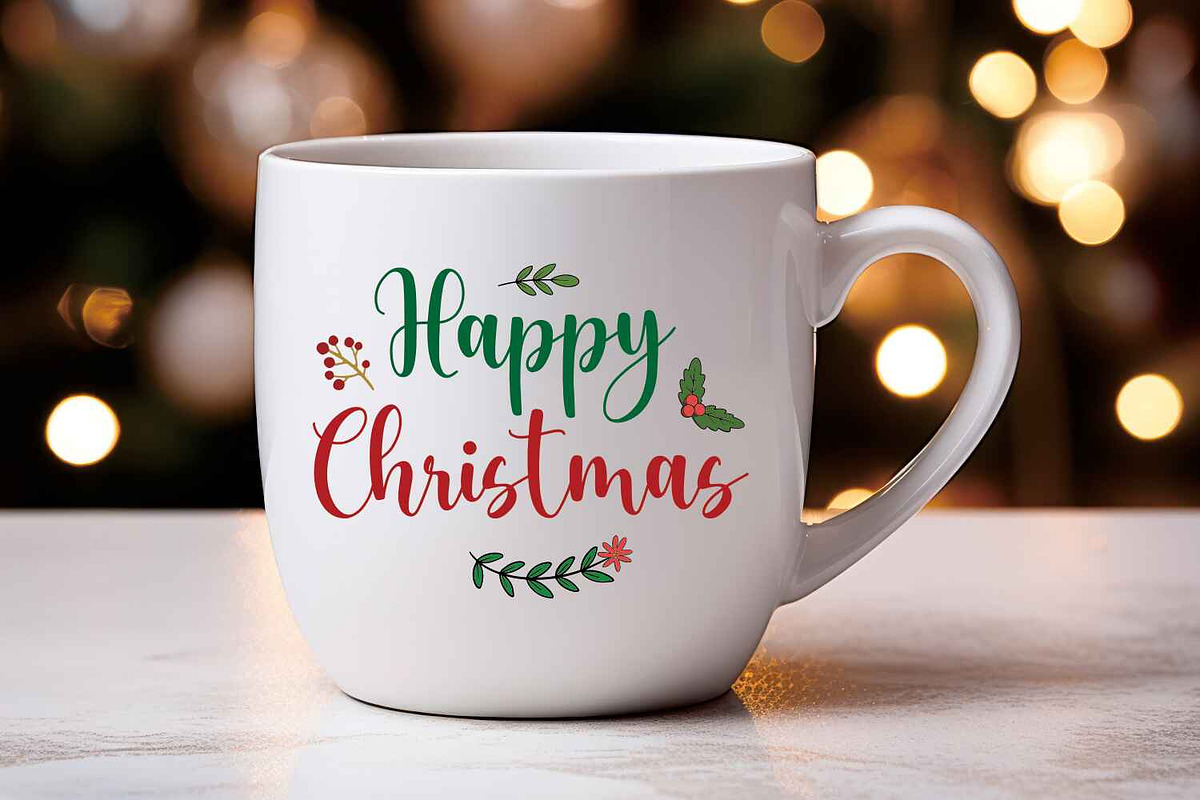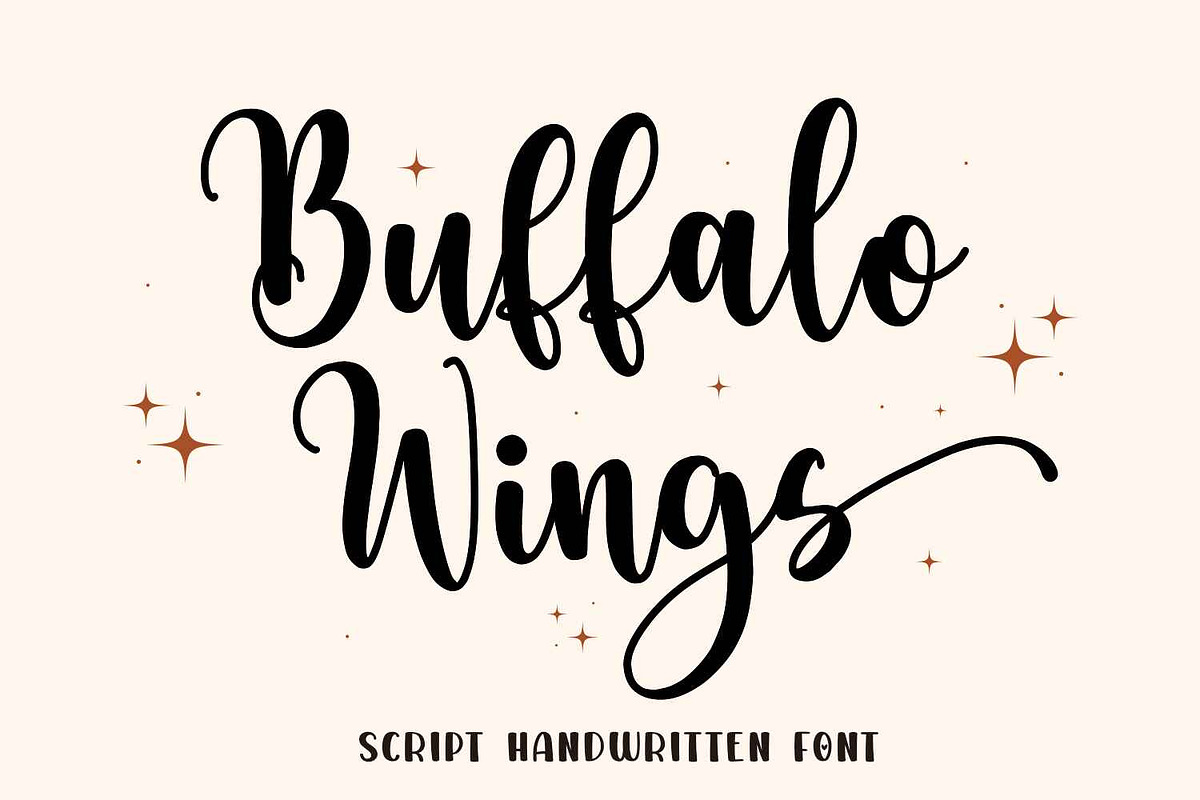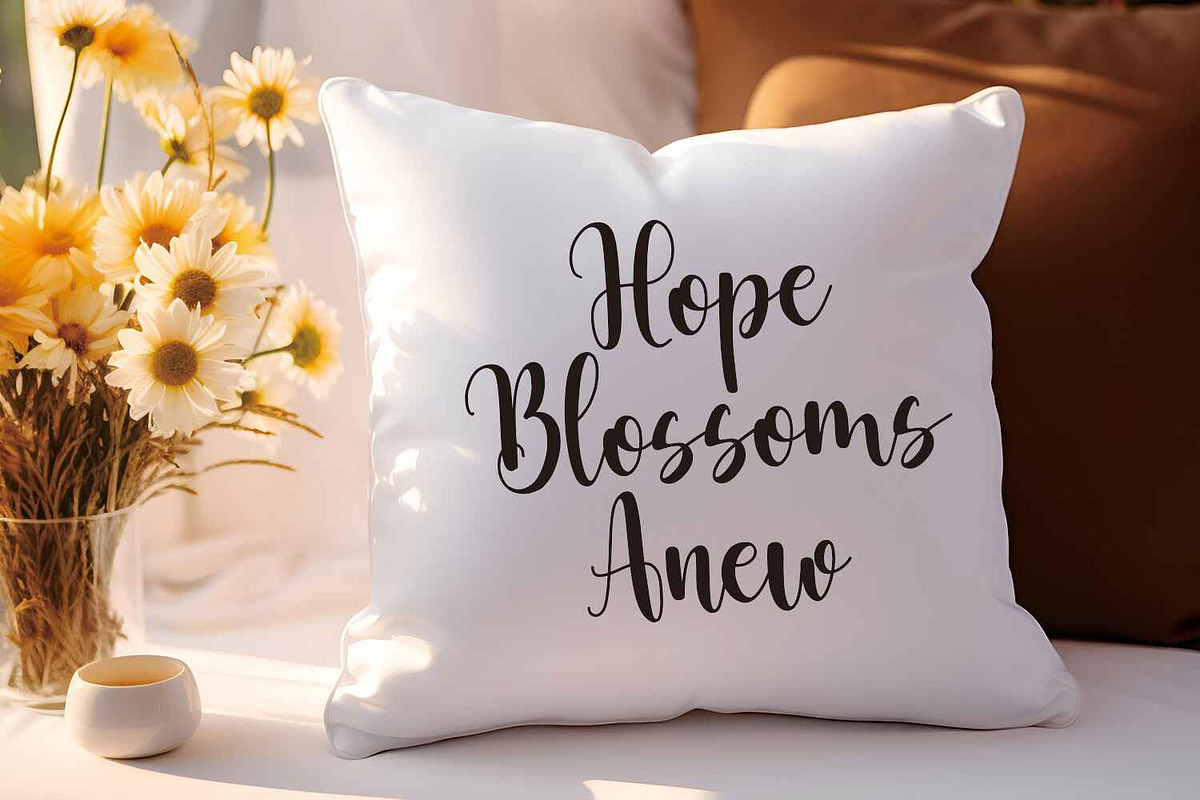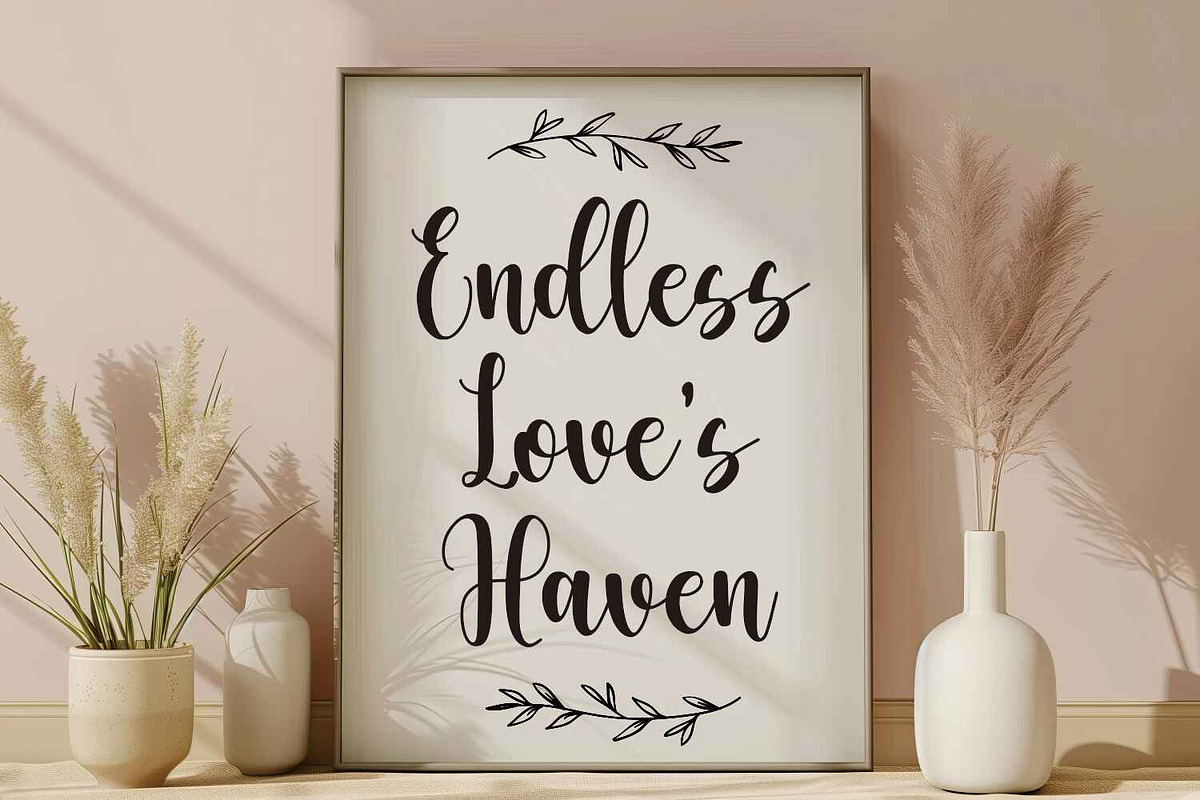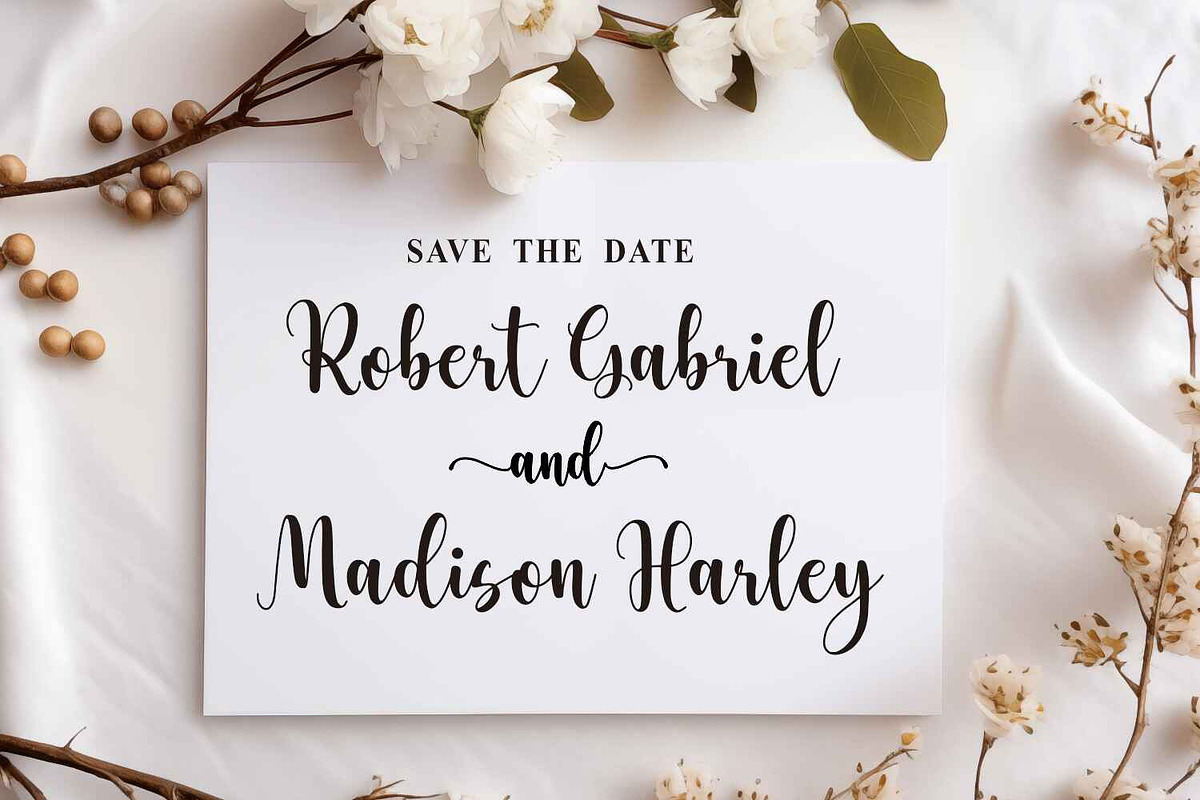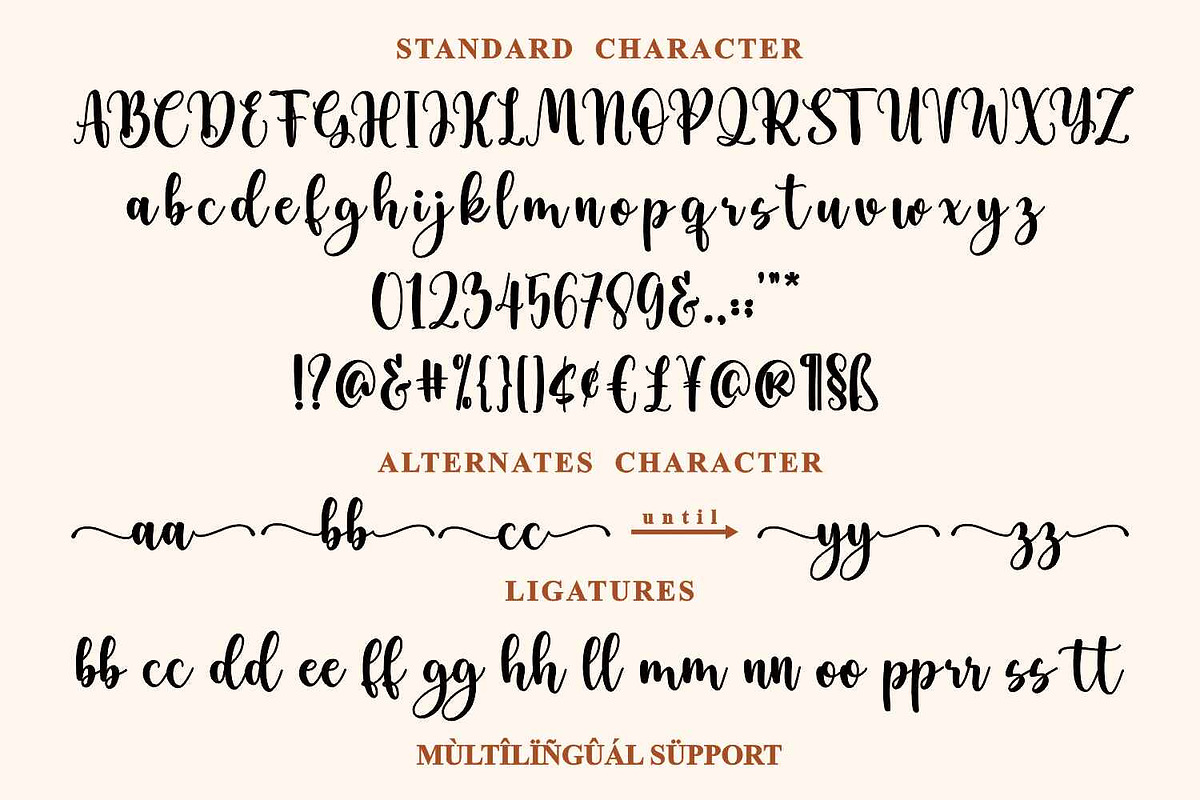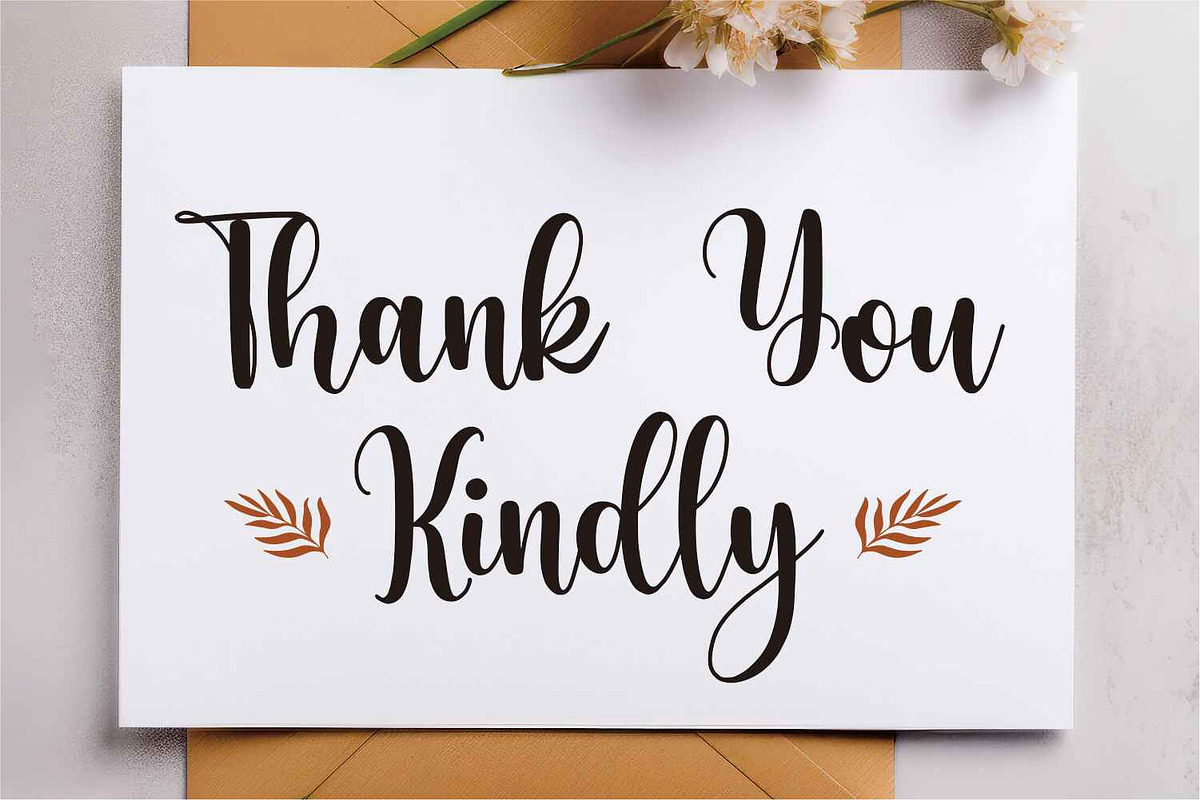
Buffalo Wings
Introducing "Buffalo Wings" font – a delightful script handwritten font tailored perfectly for all your creative endeavors. Crafted with precision, its playful strokes and charming curves make it an ideal choice for a wide array of projects. Whether you're into crafting, embroidery, or intricate designs with a silhouette machine like Cricut, "Buffalo Wings" brings a touch of elegance to your creations. With its versatility, this font captures the essence of seasons like spring and summer, as well as festive occasions like Christmas, making it a must-have for your font collection.
Elevate your branding game with "Buffalo Wings" font. From logo designs to clothing branding and packaging, this font adds a unique flair to your projects, setting them apart from the crowd. Imagine your magazine headings popping with personality or your advertising materials catching the eye with its distinct style. Whether it's T-shirts, postcards, or any other creative endeavor, "Buffalo Wings" font lends an air of sophistication and creativity to your work.